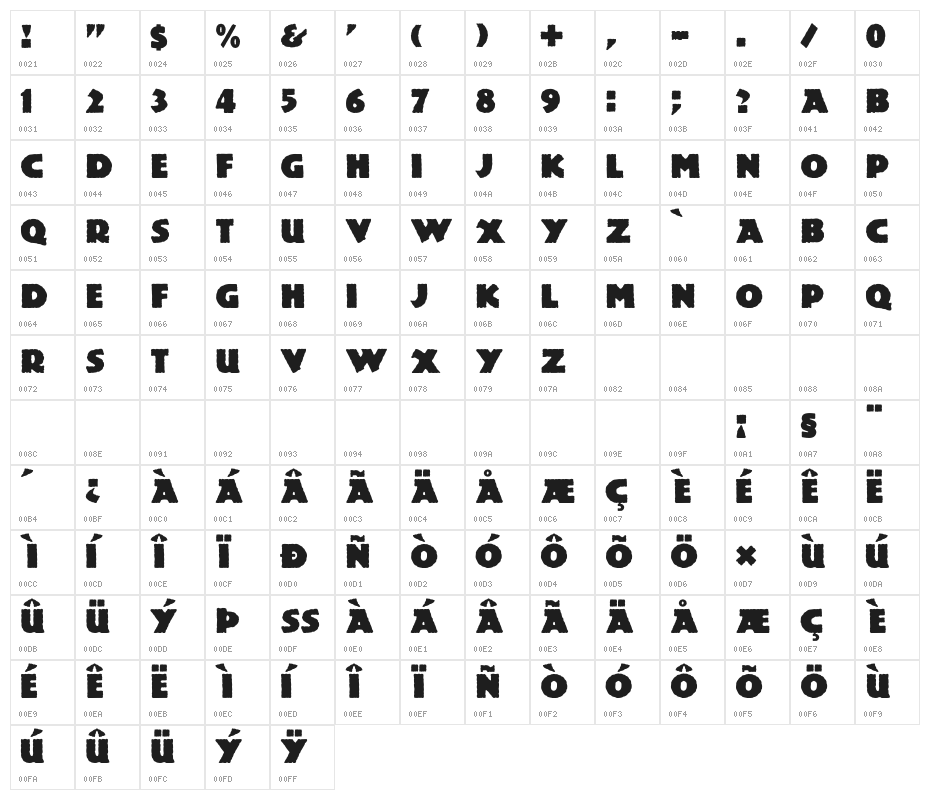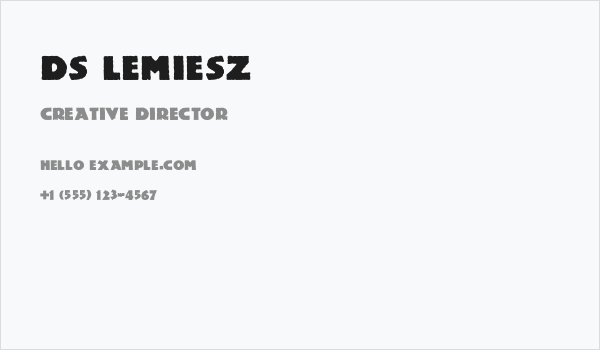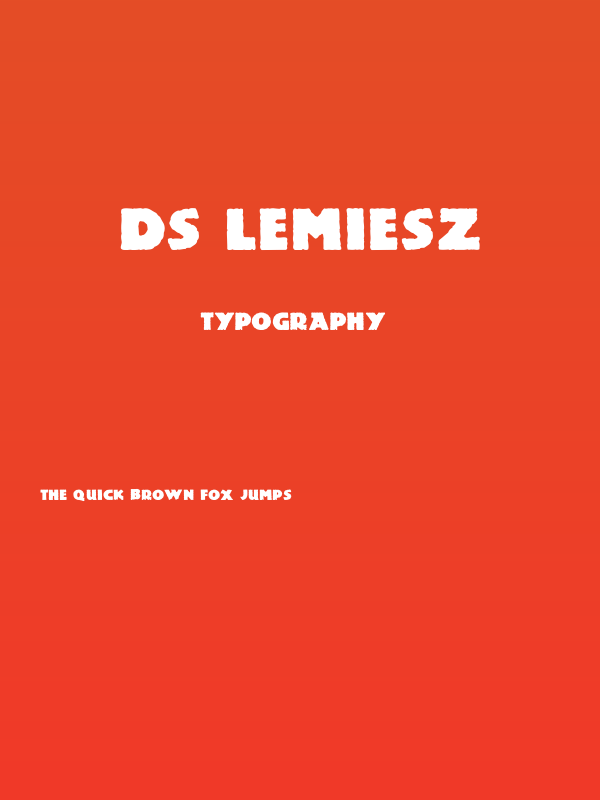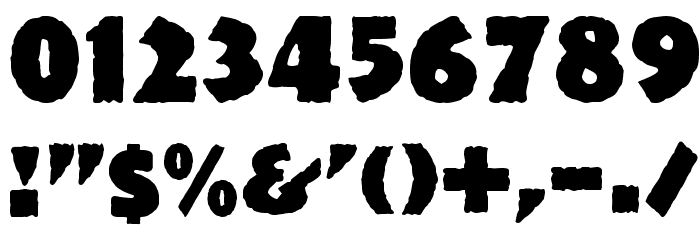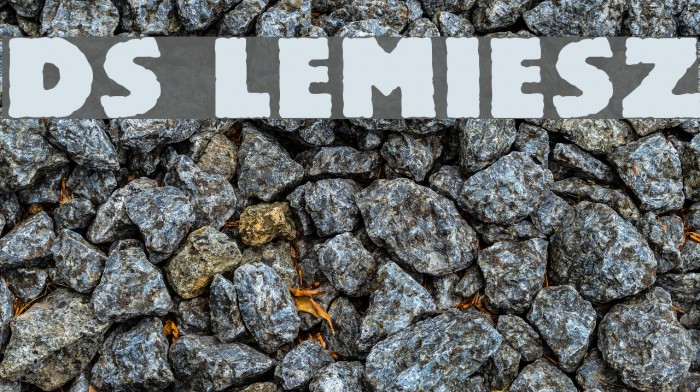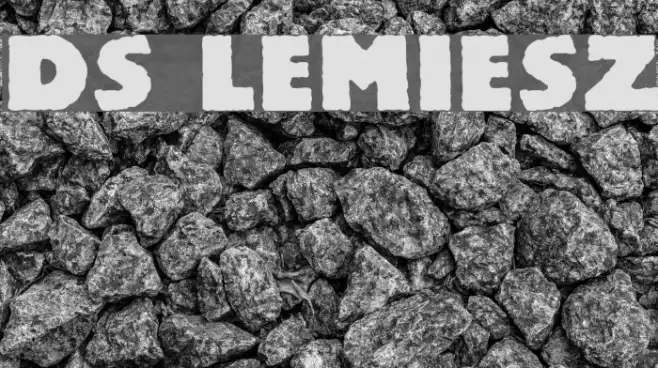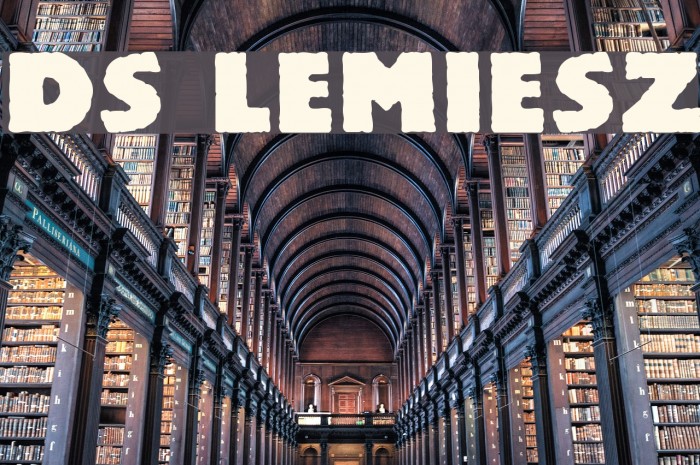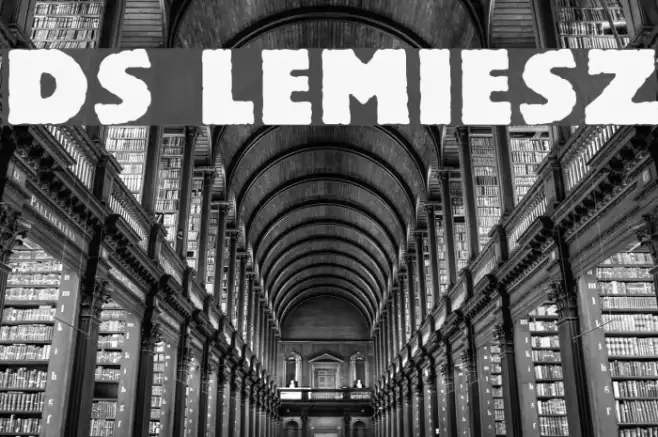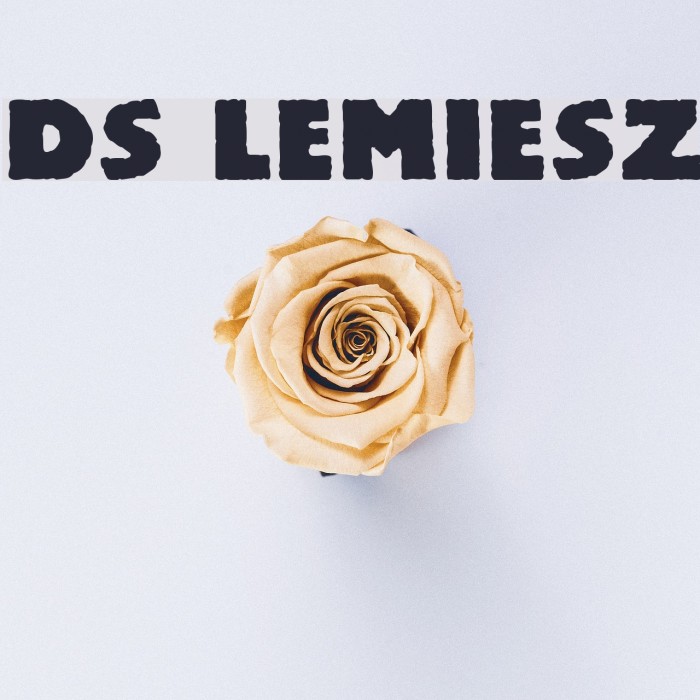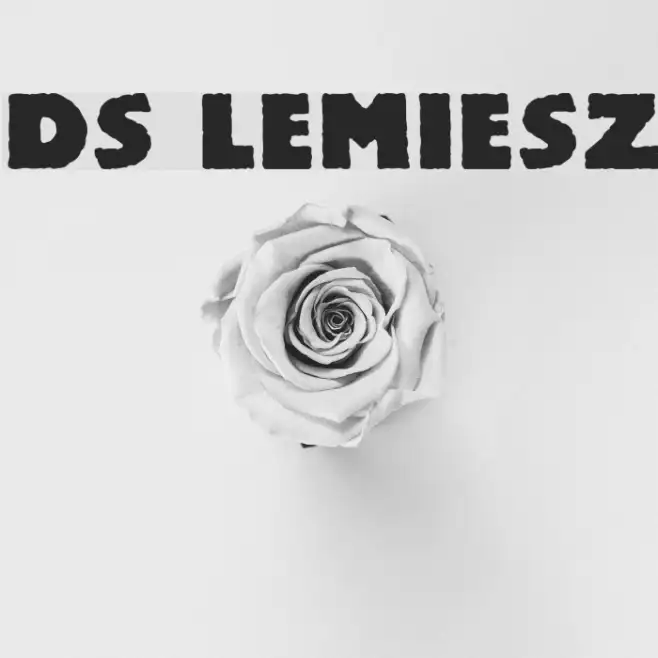
DS Lemiesz Font
DS Lemiesz Description
This font features a bold and rugged design with a distinctly textured appearance. The characters are heavily weighted, giving them a strong presence on the page. The edges are rough and uneven, contributing to a handcrafted, organic feel. This style is reminiscent of vintage woodblock printing, with a touch of modern flair. The uppercase and lowercase letters maintain a consistent style, while the numerals and special characters complement the overall aesthetic. The font's unique texture makes it stand out, ideal for projects that require a bold statement.
| Proposed Projects | Ideal for posters, logos, branding, and any design that requires a strong, impactful visual element. |